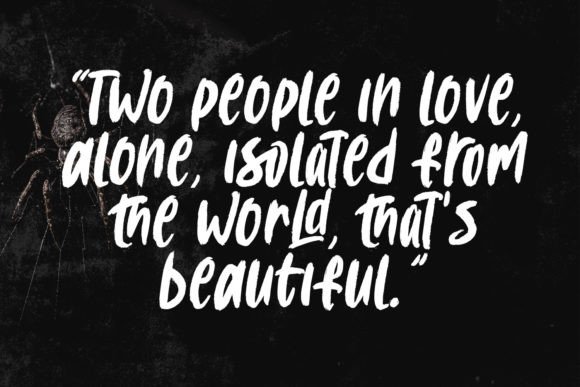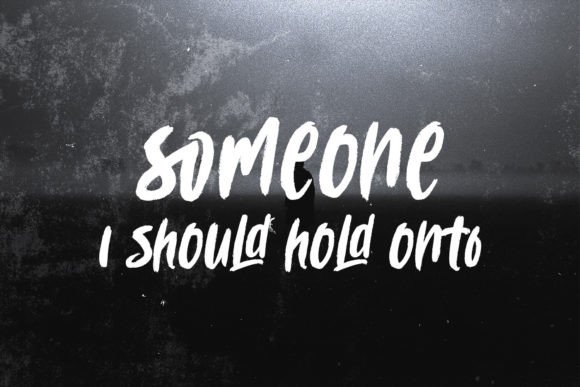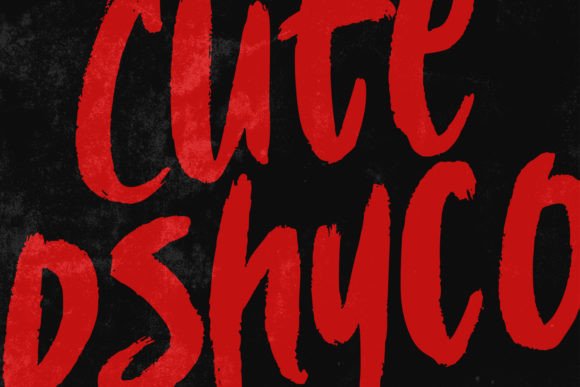
Introduction to Manforest Font
Manforest is a stylish and fashionable handwritten display font.
Its modern and cool vibe is suitable for a wide range of design ideas Add it confidently to your projects and you will love the results.
Key Features of Manforest Font
Why Choose Manforest Font?
Manforest Font offers exceptional quality and versatility, making it a valuable addition to your design toolkit. Whether you’re creating for personal projects or commercial use, Manforest Font delivers professional results.